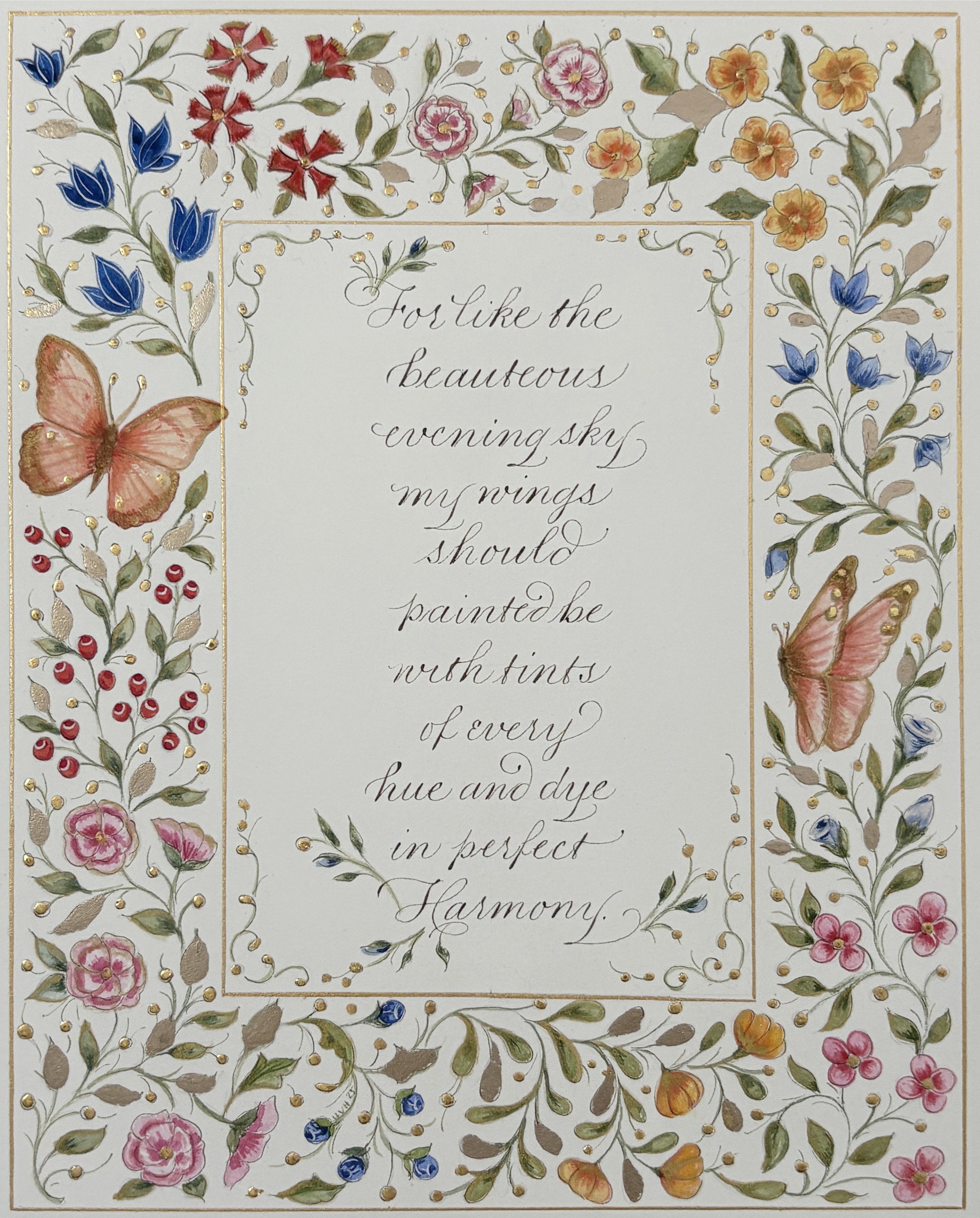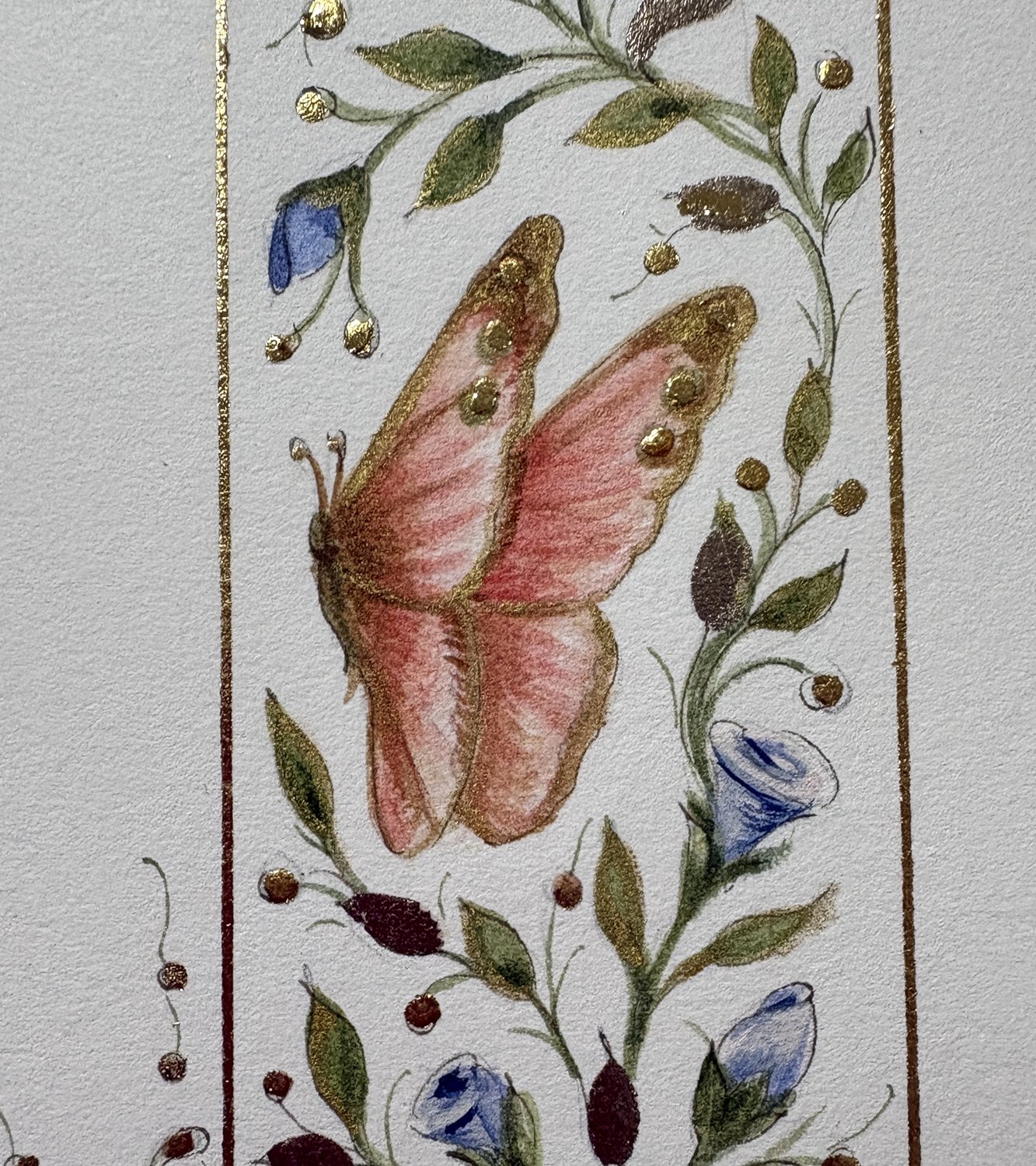
HEATHER HELD | Summer of Rinceau
ARTIST | Heather Held
BASED IN | Ontario, Canada
TITLE | Summer of Rinceau
MEDIUM | 23K Gold Leaf, 24K Handmade Shell Gold, Watercolour on Paper
Begun in the summer of 2024, this work grew from Heather’s dedicated study of Flowering Rinceau. The meditative process of creating elegant floral borders offered both therapy and inspiration, culminating in a piece completed during the autumn of 2025.
About the Artist
An artist based in Canada, Ontario
Heather Held
Heather Victoria Held is a Canadian freelance-lettering artist specializing in ornamental penmanship and offhand flourishing. Her studio, The Victorian Pen, is found in a small village, St. George, about an hour west of Toronto, Ontario.
She has studied extensively with Master Penman Michael Sull and Master Penman Brian Walker. In 2009 she was the recipient of the Spencerian Heritage Award given through Michael Sull at the Spencerian Saga.
A long-time member of Master Penman Brian Walker’s Spencerian Review Study Group, CLAS, The Copperplate Special Interest Group, and a faculty member of several International Calligraphy Conferences, Heather served as the President of IAMPETH between 2013-2014. She continues to support IAMPETH on the Board of Directors as an advisor and as an instructor for the conferences.
Heather is a firm believer in mentoring, having received much from past mentors. Through her encouraging and gentle guidance, she helps students to achieve the next level in their skills.
Her work in promoting handwriting skills has attracted television, magazine and radio coverage in Canada. Heather has also conducted intensive workshops in Offhand Flourishing, Decorative Lettering and Ornamental Penmanship worldwide.
When she is not working with her pointed pen, studying medieval and renaissance illumination or botanical painting techniques, Heather enjoys walking in nature which is her inspiration.
Her art hangs in private collections around the world and has been featured in Pen World, Bound and Lettered, Calligrafia, Somerset Studio, Romantic Homes, The Penman’s Journal, The Spencerian Review, 1000 Handmade Cards. The Speedball Textbook, The Copperplate Manual and Good Mail Day.
Married to her best friend Chris, Heather creates hand-dyed and hand-painted Held Pens which are highly sought after by artists throughout the world.